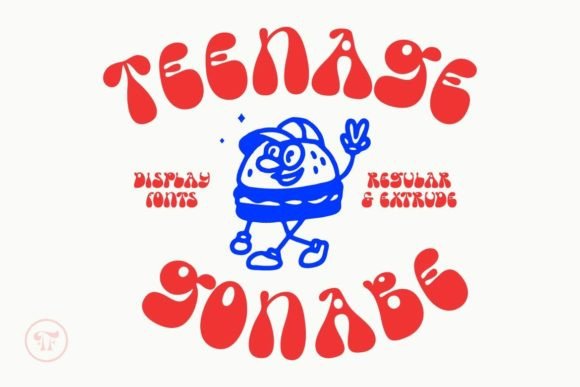
Step back in time and embrace the groovy vibes of the 60s and 70s with Teenage Gonabe Font - a display font that oozes with funky, psychedelic charm! This captivating typeface is a true masterpiece, meticulously crafted by teenagefoundry to transport you to an era defined by bold experimentation and artistic freedom.
With its playful curves, exaggerated serifs, and distinct character, Teenage Gonabe Font is a visual delight that breathes new life into your design projects. Its energetic strokes evoke a sense of nostalgia, taking you on a journey through time to an era where creativity knew no bounds.
Dive into a world of vibrant color palettes and geometric patterns, where Teenage Gonabe Font shines as the ultimate display font. Its unique letterforms dance across the page, demanding attention and igniting a spark of creativity within you. Whether you're designing posters for science projects, creating eye-catching social media graphics, or crafting logos that exude a retro flair, Teenage Gonabe Font is your perfect companion.
Unleash your inner artist and let the groovy vibes of Teenage Gonabe Font transform your designs into captivating masterpieces. Its versatility knows no limits, allowing you to effortlessly blend the past with the present, creating projects that resonate with a timeless appeal.